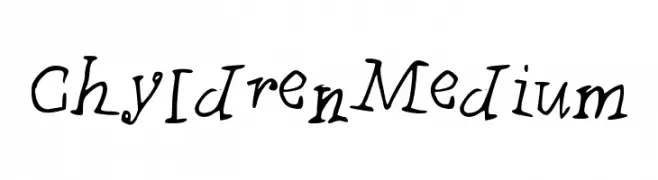
A hand-drawn, rustic font with playful, uneven strokes.
A bold, playful font with thick, uneven strokes and a cartoonish style.
A playful, hand-drawn font with bold, uneven strokes and a whimsical style.
A bold, distressed font with rugged, uneven edges for a strong visual impact.
A playful, hand-drawn font with quirky, uneven strokes and artistic flair.
A playful, hand-drawn font with whimsical and uneven letterforms.
A bold, rugged, hand-drawn style with uneven edges.